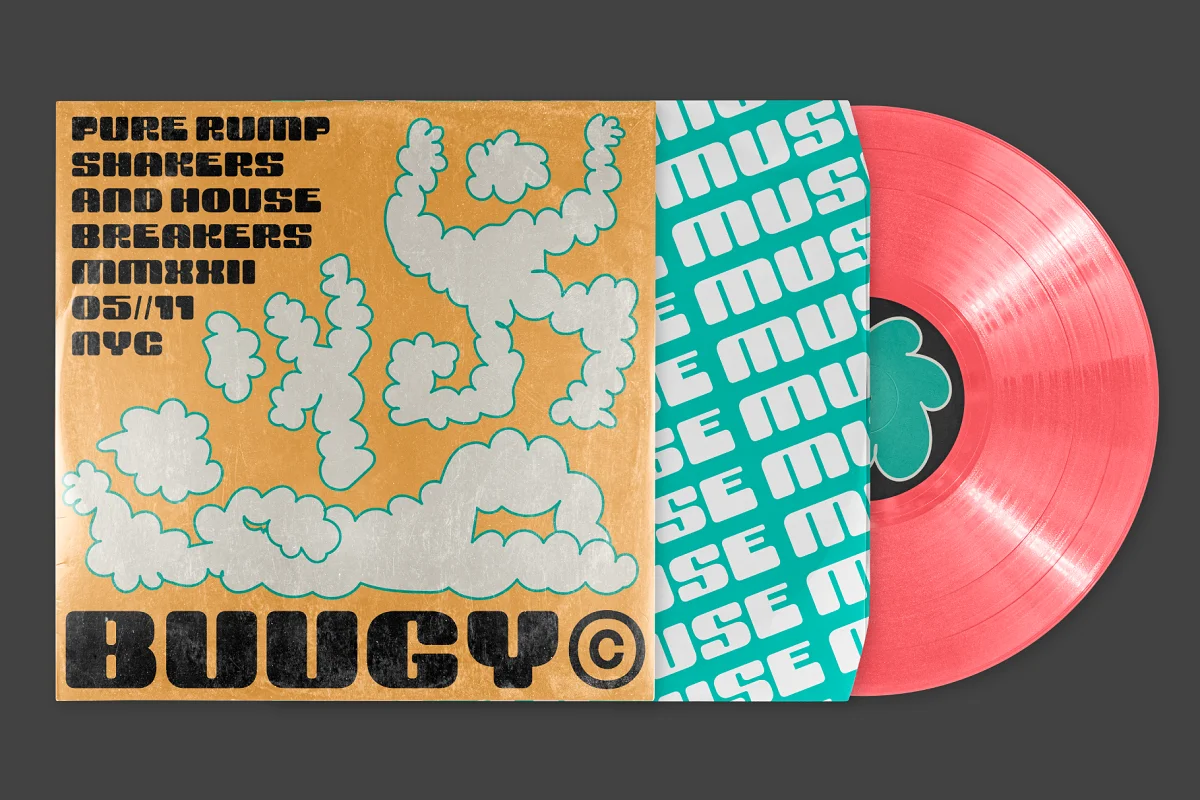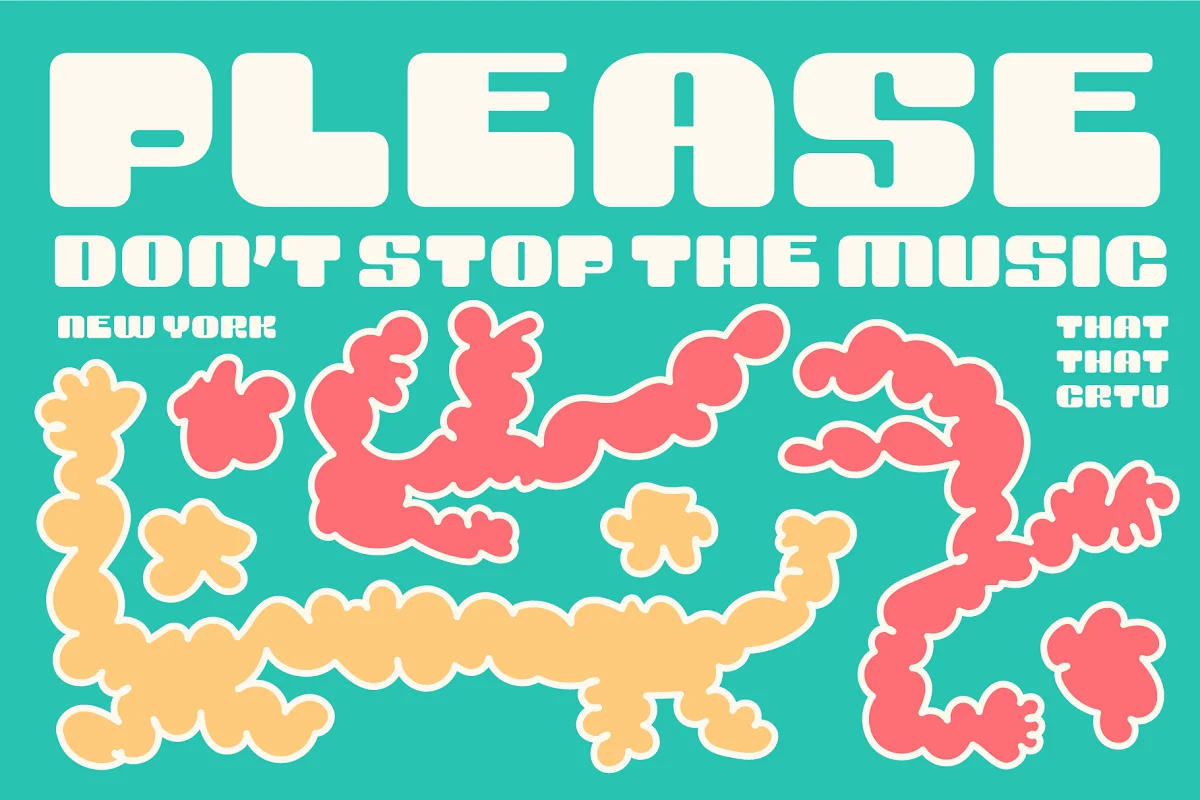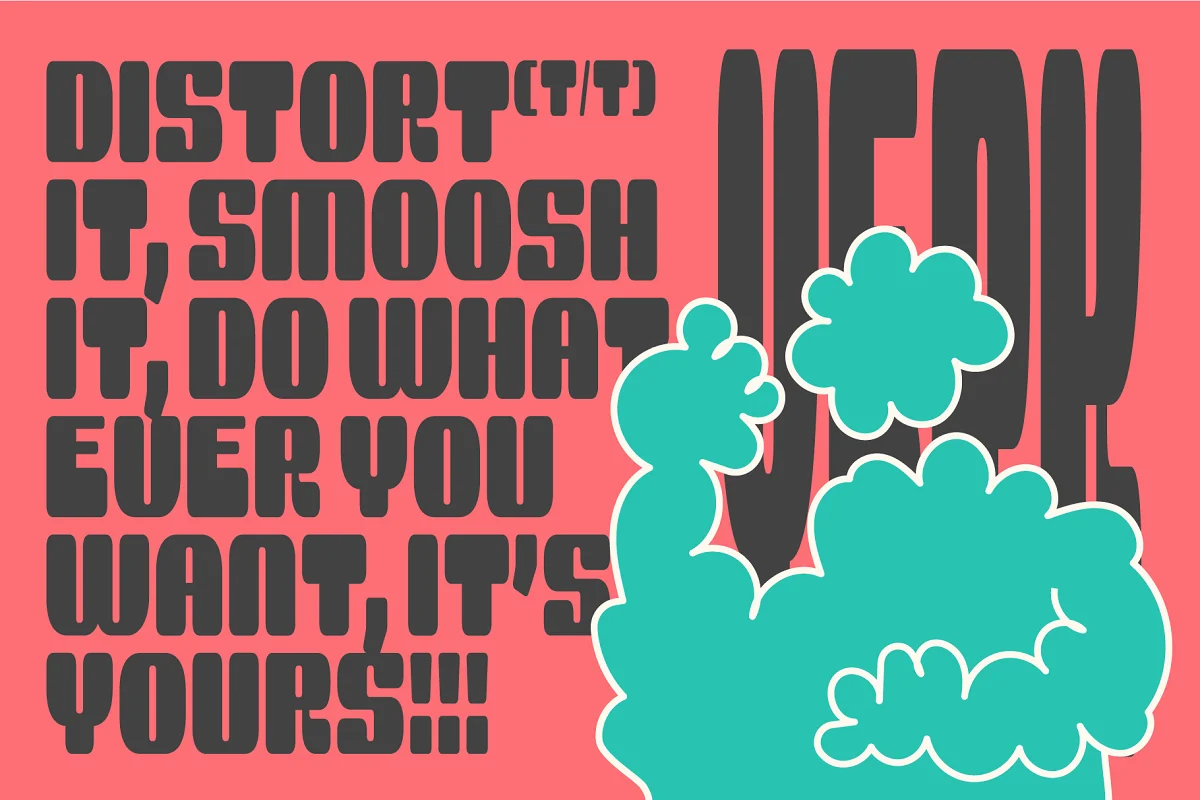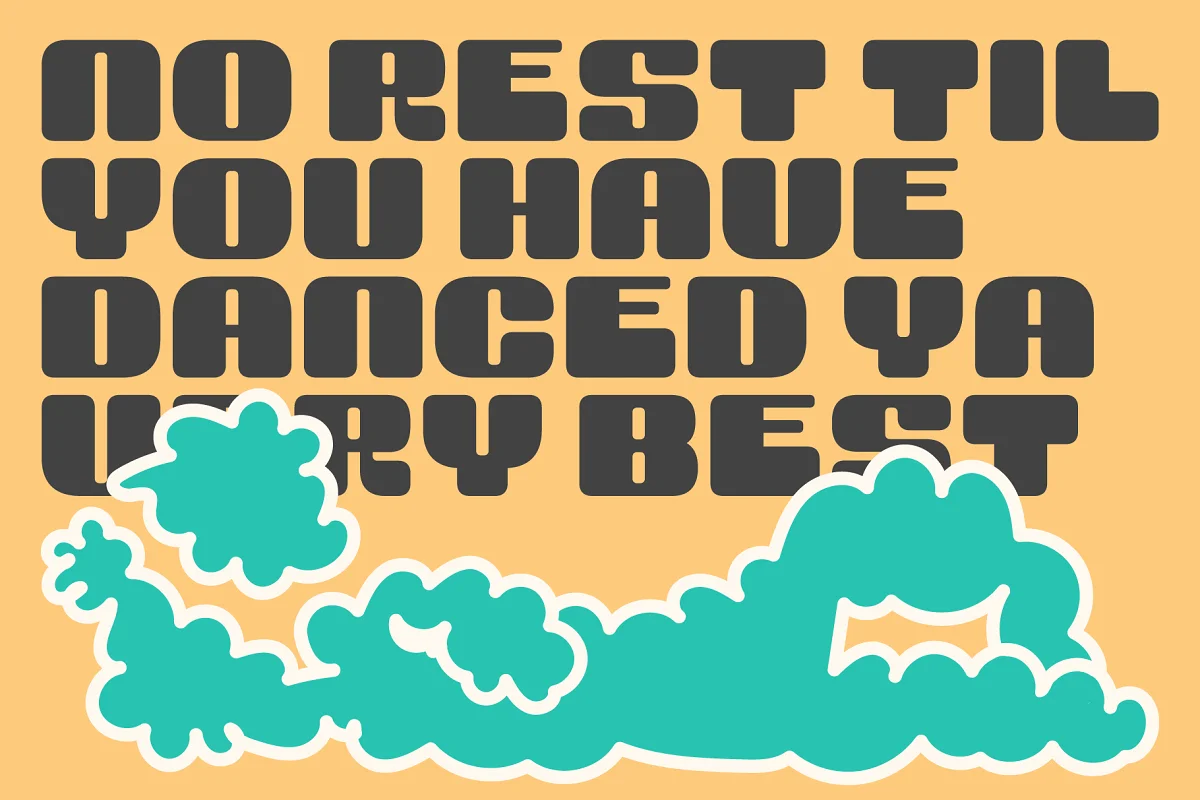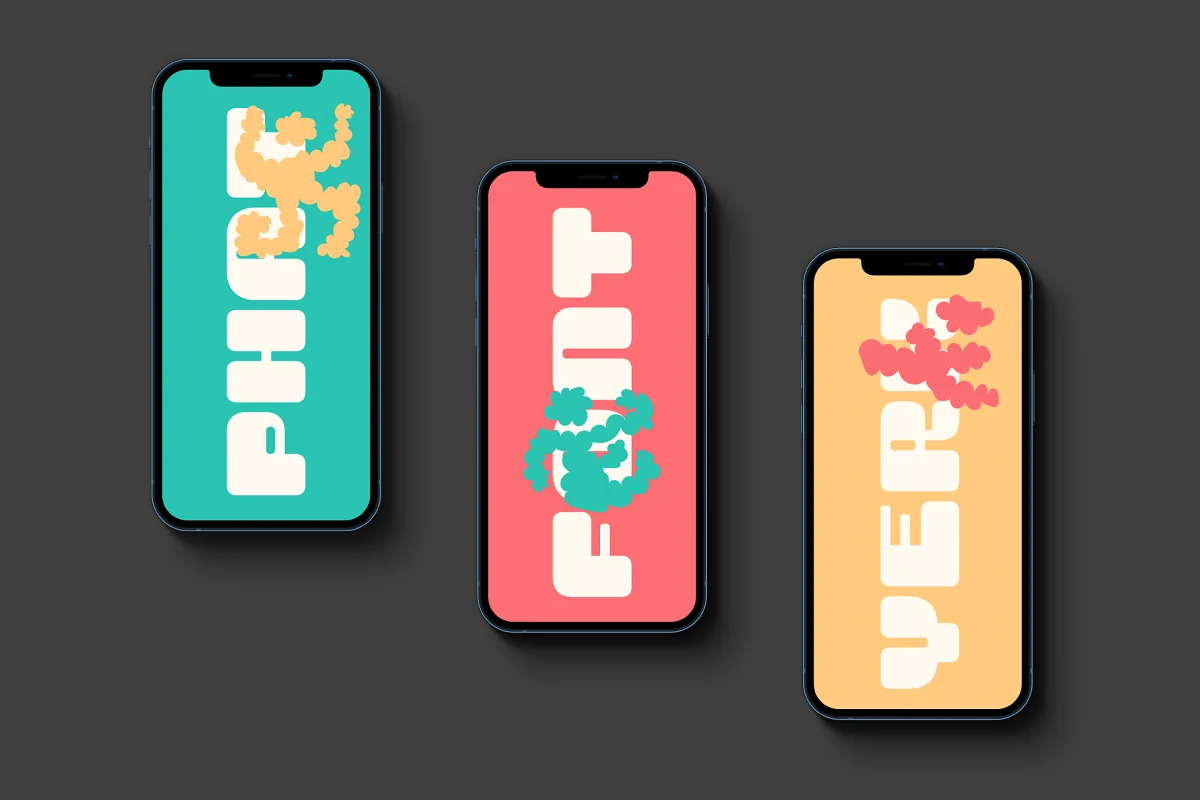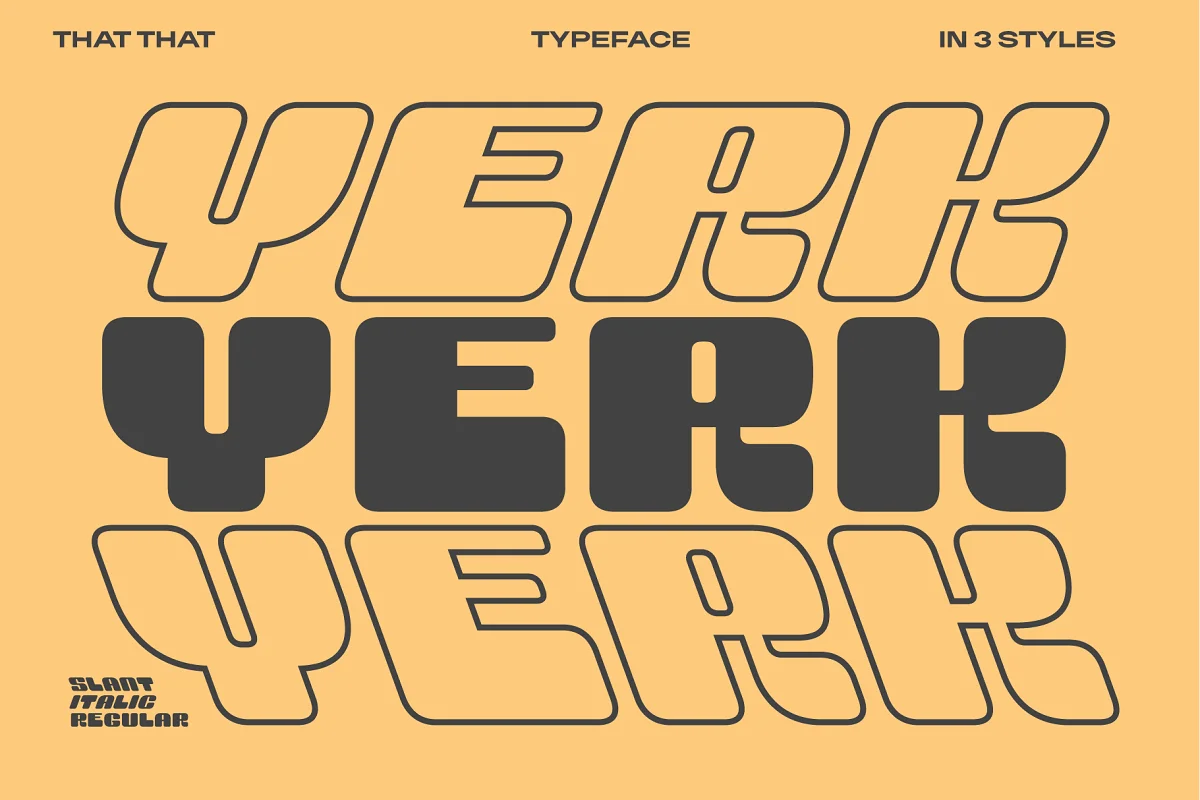
Welcome to the Yerk Y2K Font in 3 Styles!
Are you ready to add a splash of nostalgia to your designs? This digital download features the Yerk Y2K font, a fantastic tribute to the iconic style of the early 2000s. With instant access, you can start creating immediately! 🎉
The Yerk Y2K font is a modern take on the Y2K aesthetic, available in three distinct styles: regular, italic, and slanted. Its bold weight and squared-off letters with slightly rounded corners make it a standout choice for any project. Whether you’re designing a logo, branding material, or eye-catching magazine layouts, this font brings a unique personality that captures the essence of the era. ✨
- Three Distinct Styles: Regular, italic, and slanted options provide versatility for any design project.
- Bold Weight: The strong presence of this font ensures your messages stand out.
- Perfect for Branding: Ideal for logos and branding materials, making your projects memorable.
- Modern Y2K Vibe: Captures the playful spirit of the early 2000s, perfect for trendy designs.
This font is a fantastic choice for graphic designers, branding experts, and anyone looking to infuse their work with a bit of Y2K flair! Whether you’re crafting a nostalgic poster, a trendy Instagram post, or a sleek magazine layout, the Yerk Y2K font is sure to impress. 🎨